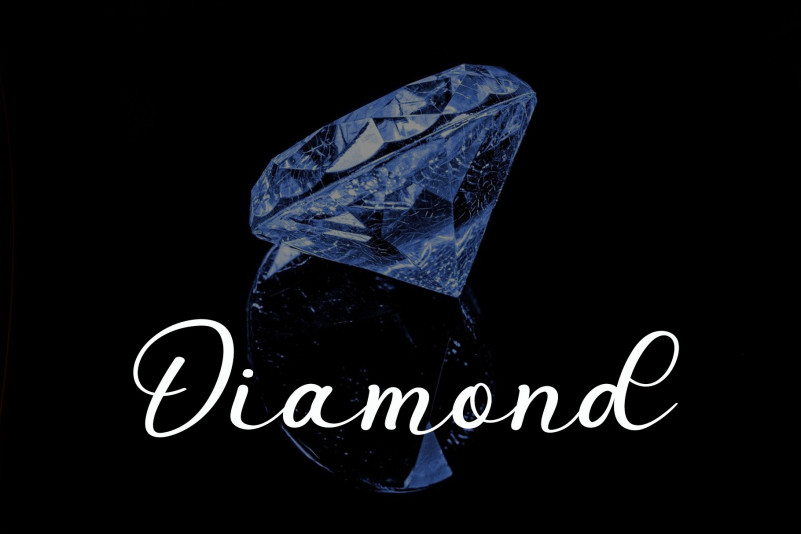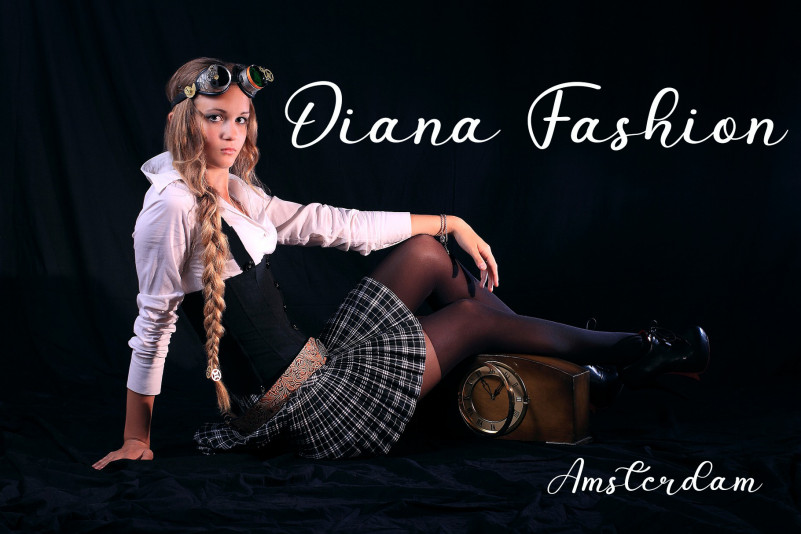
Handmade Beautiful Font
Handmade Beautiful Script Font
This is a delicate, refined script font that emanates sophistication and elegance. Its stylish alternates and ligatures make this font the perfect match for any project.